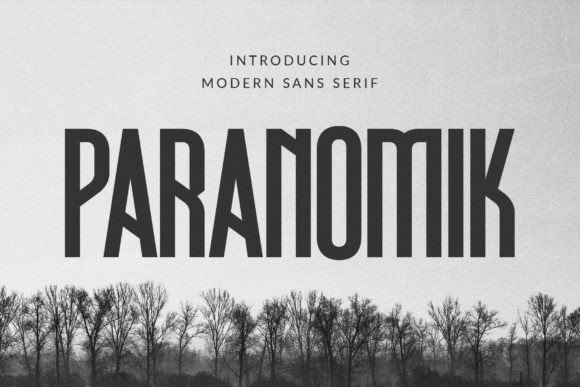
In a digital world brimming with visual cacophony, where brands vie for attention amidst a sea of sameness, Paranomik Font emerges as a beacon of distinction, a typographic masterpiece poised to elevate your creative endeavors to unparalleled heights.
Crafted by the visionary artisans at BrandSemut, Paranomik is an exquisite sans serif typeface that embodies elegance, modernity, and timeless appeal. Its crisp, clean lines and smooth, sweeping curves lend an air of sophistication to any project, whether it be a captivating logo, a striking headline, or an alluring invitation.
With its inherent versatility, Paranomik effortlessly adapts to a myriad of applications, effortlessly enhancing the visual impact of branding initiatives, product packaging, and magazine layouts. Unleash your imagination and witness the transformative power of Paranomik as it breathes life into your creative visions.
Immerse yourself in the world of Paranomik, a font family carefully designed to resonate with your aesthetic sensibilities. Bask in the glory of its meticulously crafted characters, each meticulously rendered to perfection, ensuring flawless execution in both digital and print formats.
Paranomik, a font that transcends the mundane, beckons you to embrace its allure and embark on a journey of creative exploration. Let your imagination soar as you harness the power of this typographic marvel to craft visual masterpieces that leave an indelible mark on the minds of your audience.